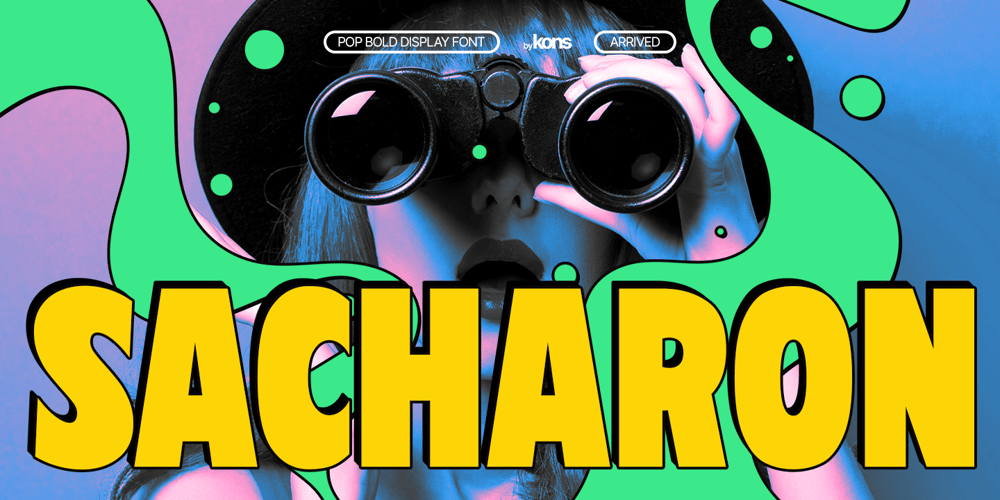
Sacharon
Sacharon font
Sacharon Font Family was designed by Abdilah and published by Konstantine Studio. Sacharon contains 1 styles and family package options. Are you tired of the same old fonts that everyone’s using? Add a touch of nostalgia and personality to your designs with Sacharon, a retro pop font! Whether you’re working on a vintage-themed project, designing a catchy poster, or simply want to stand out from the crowd, our fonts will give your work the groovy vibe it deserves.Sacharon takes inspiration from the bold and vibrant styles of the ’60s and ’70s, bringing back the essence of the good old days. From funky disco fonts to psychedelic lettering, we’ve got the perfect typefaces to transport your audience to an era of fun and excitement.Perfectly fit for logo, branding, advertising, poster, food and beverages, restaurant, book cover, album artwork, decoration, sign painting, and many more.Don’t settle for ordinary typography—take a trip down memory lane with Sacharon! Browse our collection now and transform your designs into eye-catching works of art. Get ready to embrace the vibrant, nostalgic spirit of the past in a modern and trendy way. Get it now and let the grooviness begin!